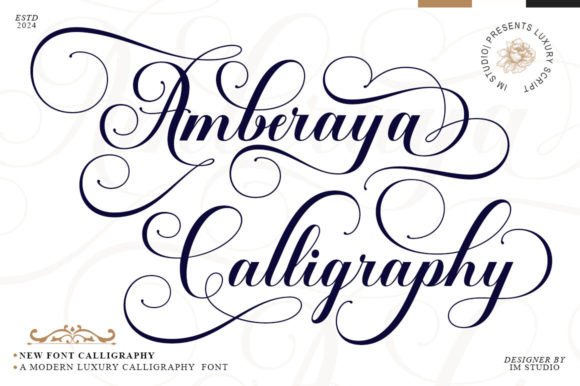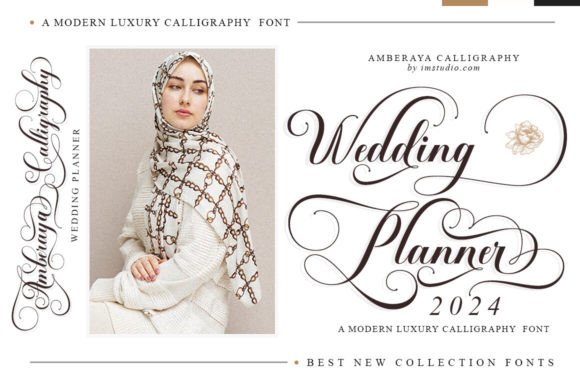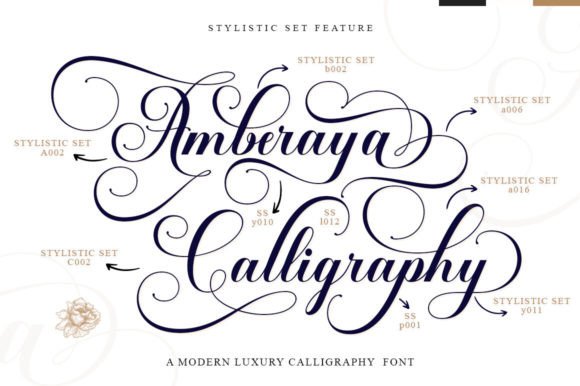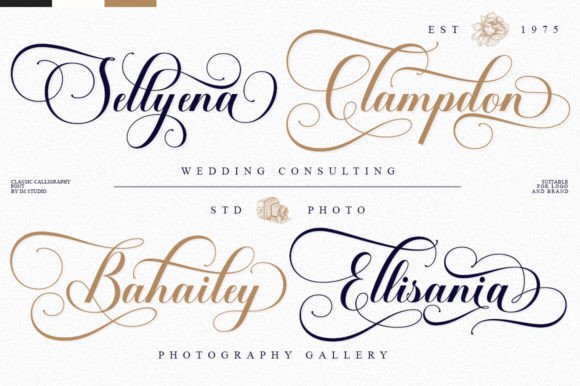
Amberaya Calligraphy Font
About the Amberaya Calligraphy Font
From logos to headlines, the Amberaya Calligraphy Font is the perfect choice for making a lasting impression. Amberaya Calligraphy is a delicate, elegant, and timeless font. It has beautiful and well-balanced characters and as a result, it matches a wide pool of designs. Add it to your most creative ideas and notice how it makes them come alive!
Amberaya Calligraphy’s elegant and delicate nature makes it ideal for projects requiring a touch of sophistication. It shines in applications such as wedding invitations, luxury branding, and short, impactful headlines. Its refined aesthetic, however, is less suitable for body text or user interfaces, where readability over extended lengths is crucial.
Pairing Amberaya with a clean sans-serif font like Lato for body copy or a geometric sans-serif for a modern feel creates a balanced and visually appealing combination. For a more traditional look, consider pairing it with a classic serif such as Garamond or a complementary script font with less flourish for a cohesive yet varied design.
The overall personality of Amberaya is sophisticated and refined, lending itself to brands and projects that emphasize quality, craftsmanship, and timeless appeal. Avoid using it where a bold or playful statement is required.
Amberaya Calligraphy Font Usage Examples
Amberaya Calligraphy Font Example